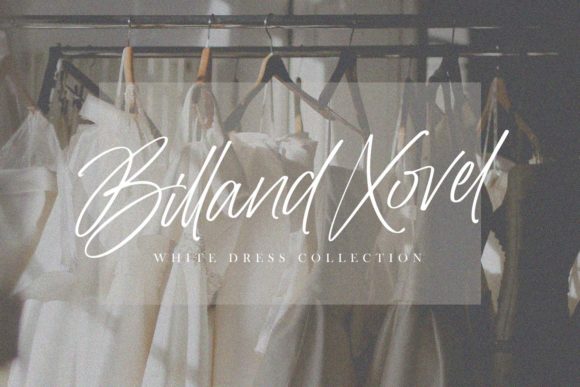
The Elegant Abu Dhabi Font: A Designer’s New Best Friend
I’ll never forget the time I was working on a project for a luxury brand, and I just couldn’t find the right font to match their sophisticated vibe. I had tried countless fonts, but none of them seemed to fit the bill. That was until I stumbled upon the Abu Dhabi font. This delicate, elegant, and flowing handwritten font has been a game-changer for my designs, and I’m excited to share its beauty with you.
I’ve had the pleasure of working with the Abu Dhabi font for a while now, and here’s what I think:
- ✨ Elegant and sophisticated: The Abu Dhabi font exudes luxury and refinement, making it perfect for high-end brands or special projects.
- ✅ Versatile: Its beautiful and well-balanced characters make it suitable for a wide range of designs, from wedding invitations to business cards.
- 💫 Easy to read: Despite its elegant nature, the font remains highly legible, even at smaller sizes.
Now, I’m not going to sugarcoat it – there are a few quirks to consider:
- 🤔 Limited use of bold weights: While the font does come in different weights, it’s not ideal for creating super bold or attention-grabbing headlines.
- ⚠️ Some glyphs may require manual adjustment: Depending on the platform or software you’re using, you might need to tweak certain glyphs to get the perfect look.
The Story Behind Abu Dhabi Font
The Abu Dhabi font was designed with elegance and sophistication in mind. Its creator aimed to craft a font that would evoke the luxury and refinement of the Middle East, while still being versatile and easy to read. The result is a stunning font that’s perfect for designers, crafters, and creative hobbyists looking to add a touch of class to their projects.
| Font Name | Abu Dhabi Font |
| Author | Subectype |
| Is the Abu Dhabi font suitable for body text? | While the Abu Dhabi font is elegant and easy to read, it’s best suited for headings, titles, or short paragraphs. For longer body text, you may want to consider a more traditional serif or sans-serif font. |